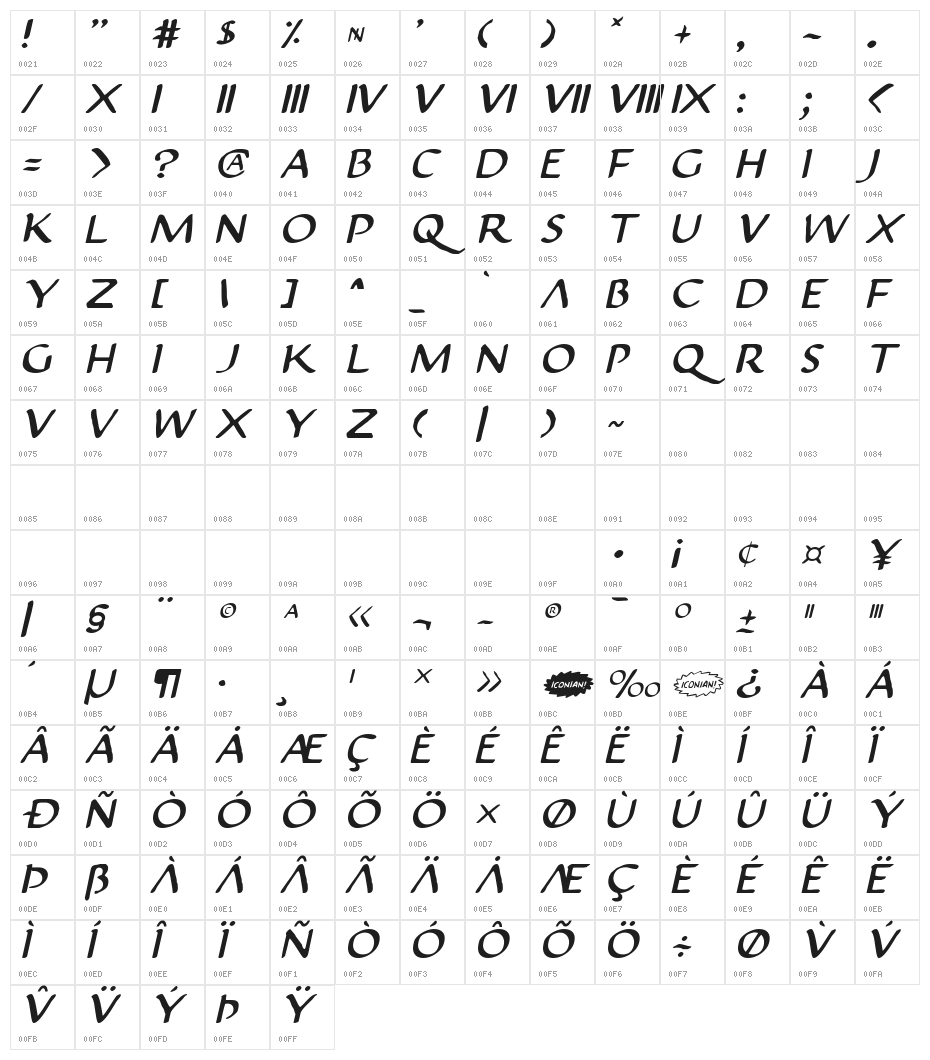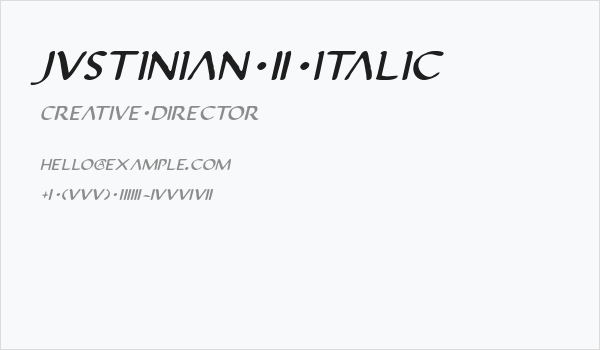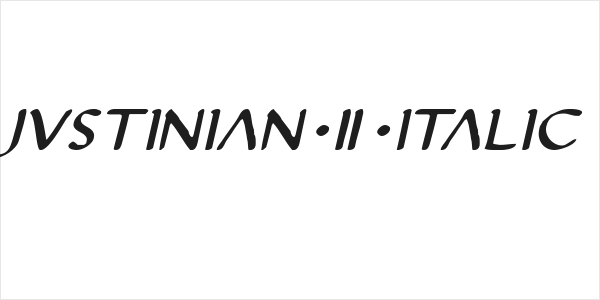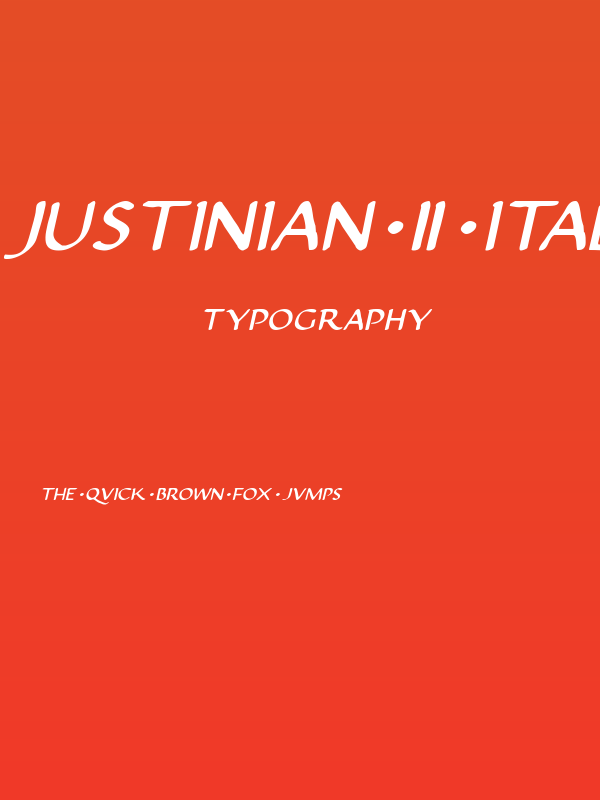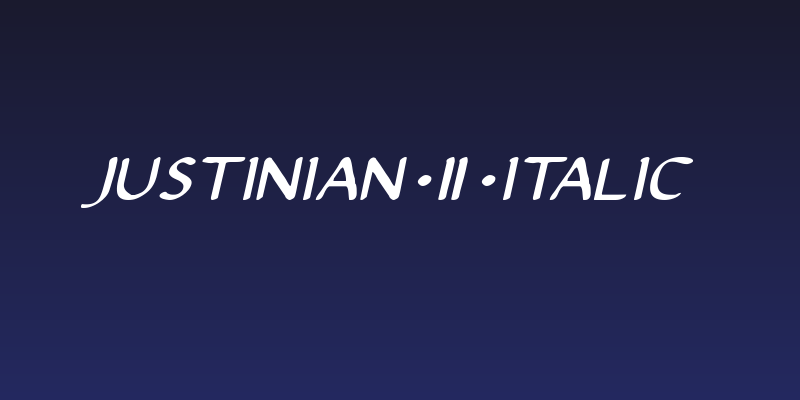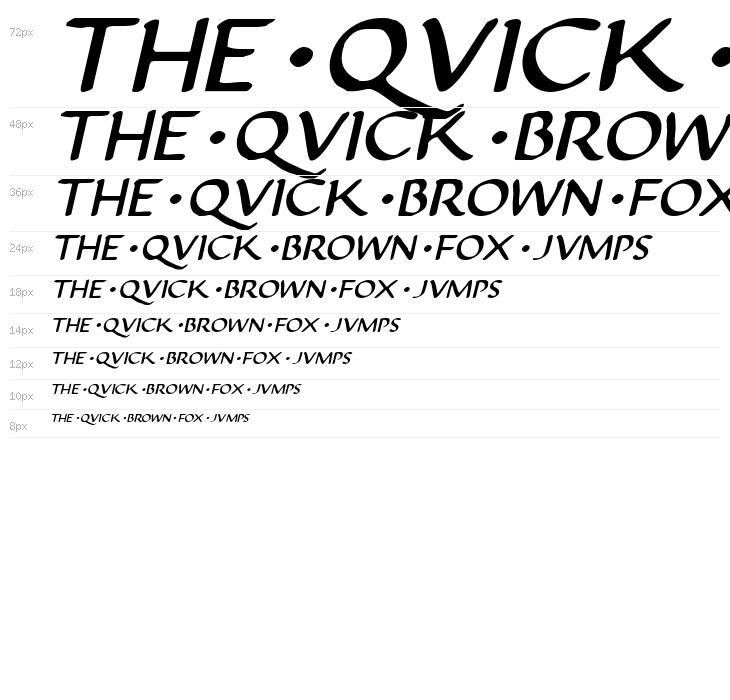
Justinian 2 Italic Font
Justinian 2 Italic Description
This font features a dynamic and flowing italic style, characterized by its elegant curves and sharp angles. The uppercase letters are distinct with a slight slant, giving a sense of motion and sophistication. The lowercase letters complement the uppercase with a consistent slant and smooth transitions between strokes. The numerals maintain the same stylistic approach, ensuring uniformity across all characters. Special characters are designed with the same attention to detail, making them easily recognizable and harmonious with the rest of the font.
Overall StyleElegant
Use CaseLogos, Invitations, Editorial Design
Proposed ProjectsIdeal for projects that require a touch of elegance and motion, such as wedding invitations, luxury branding, and editorial design.